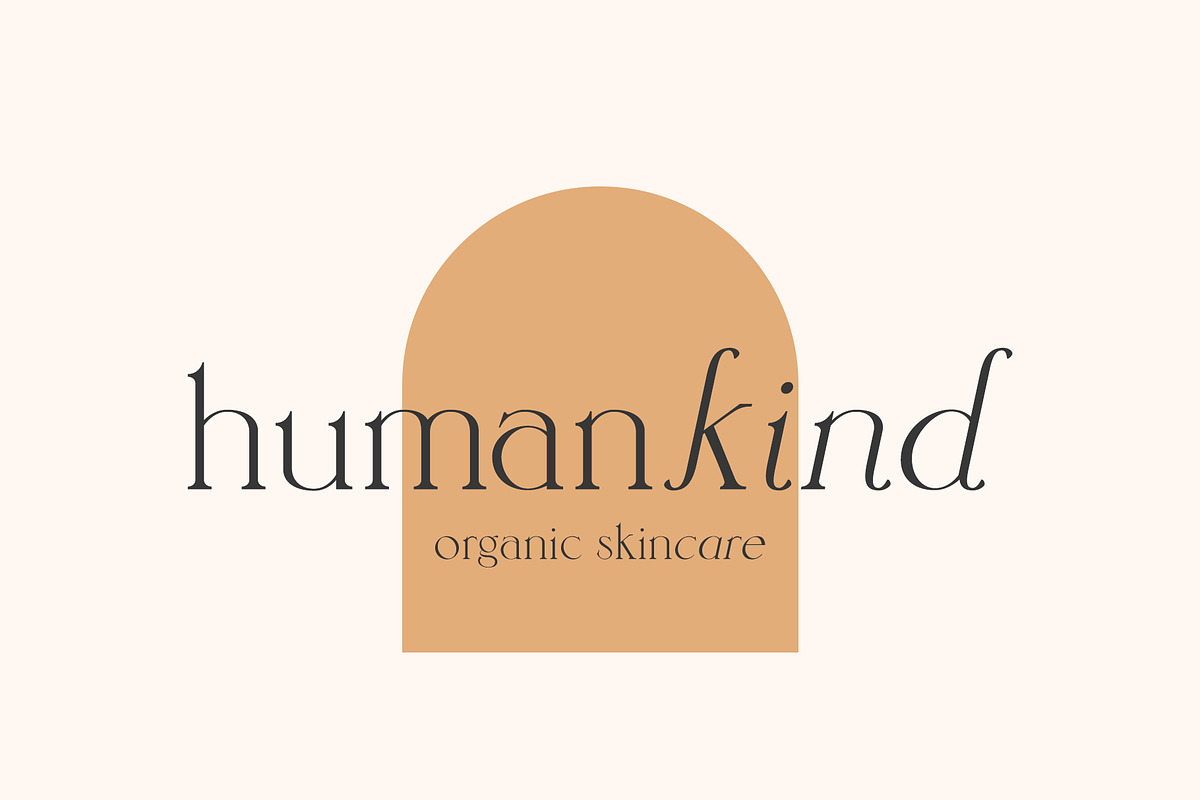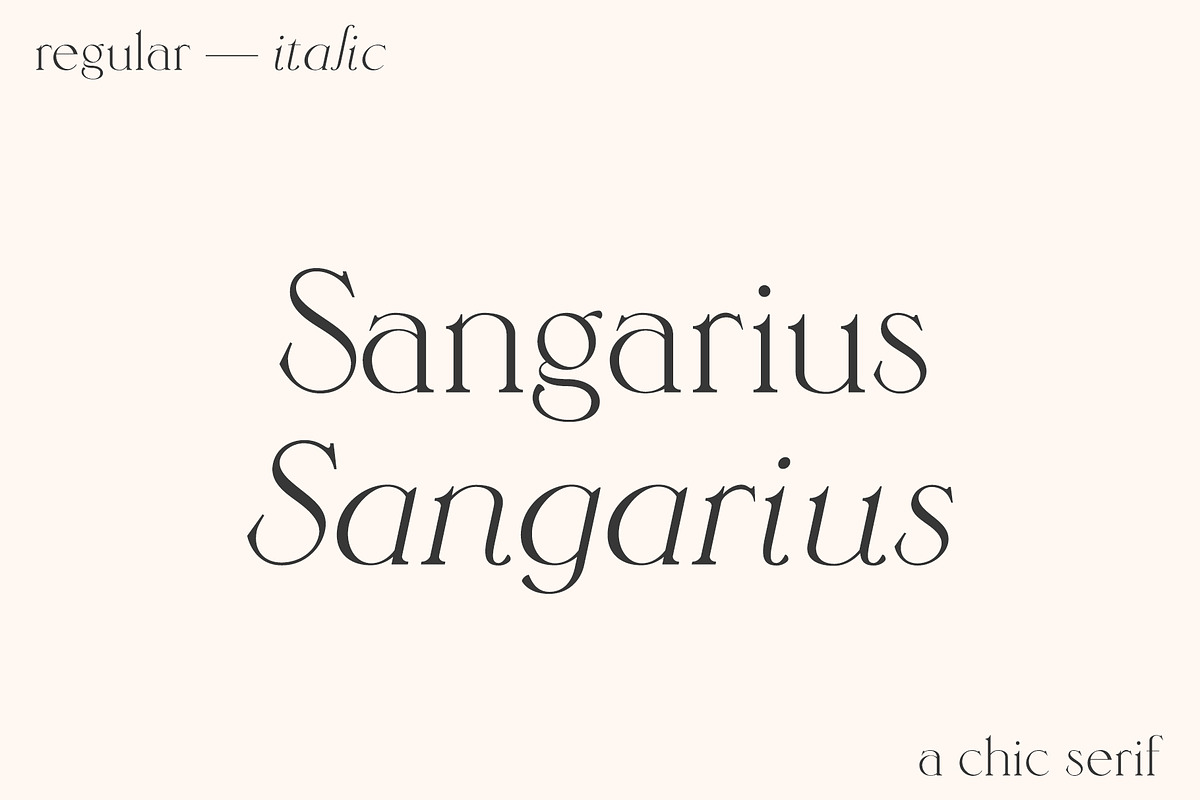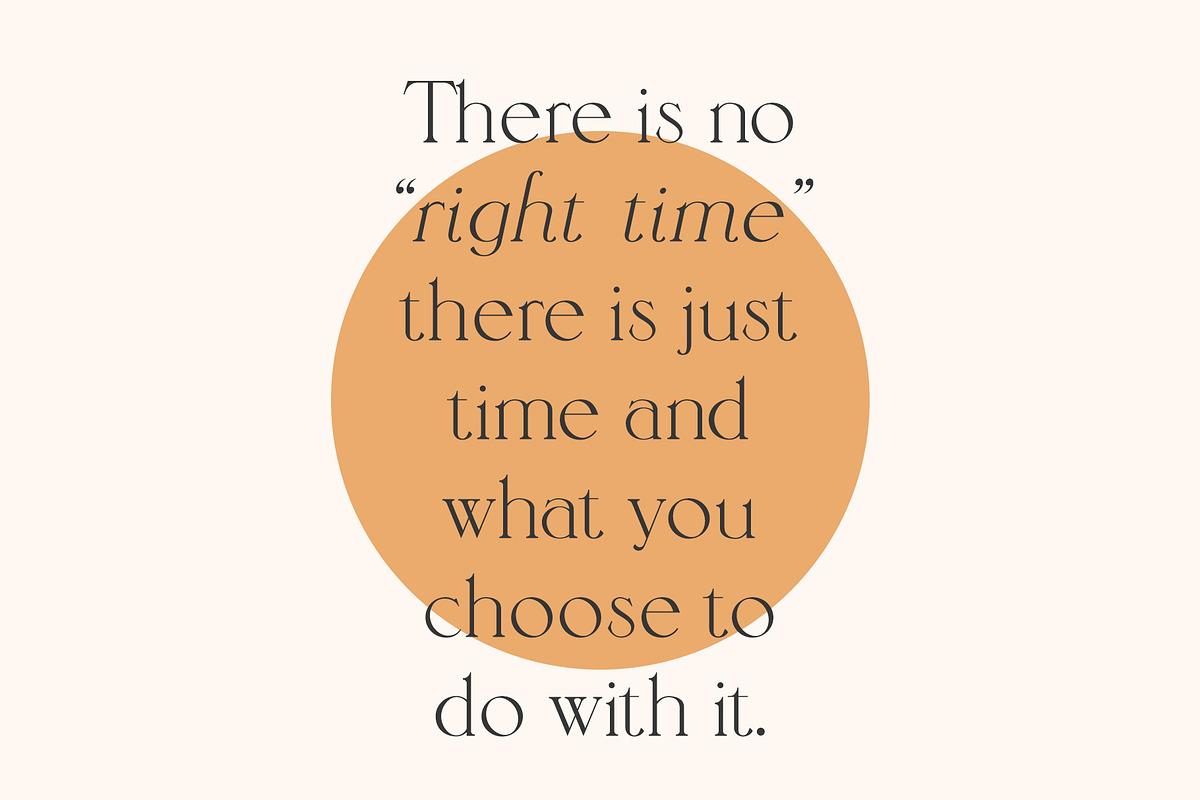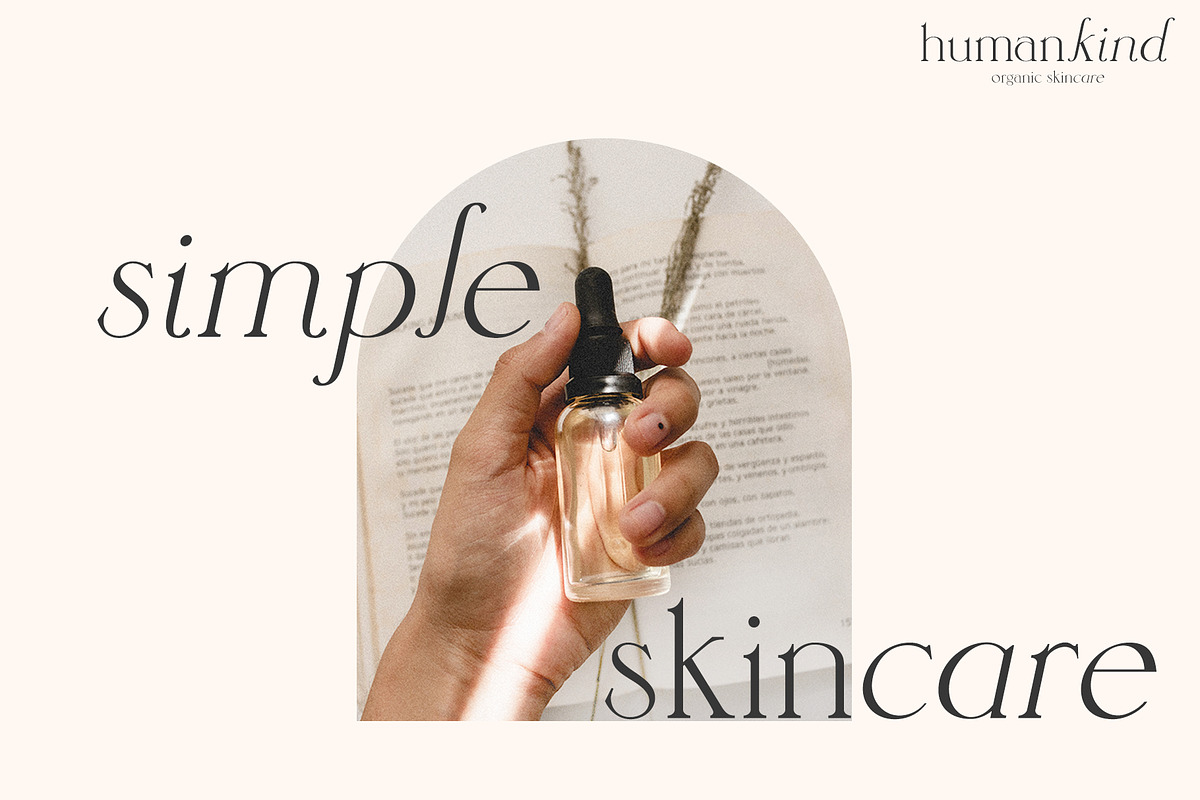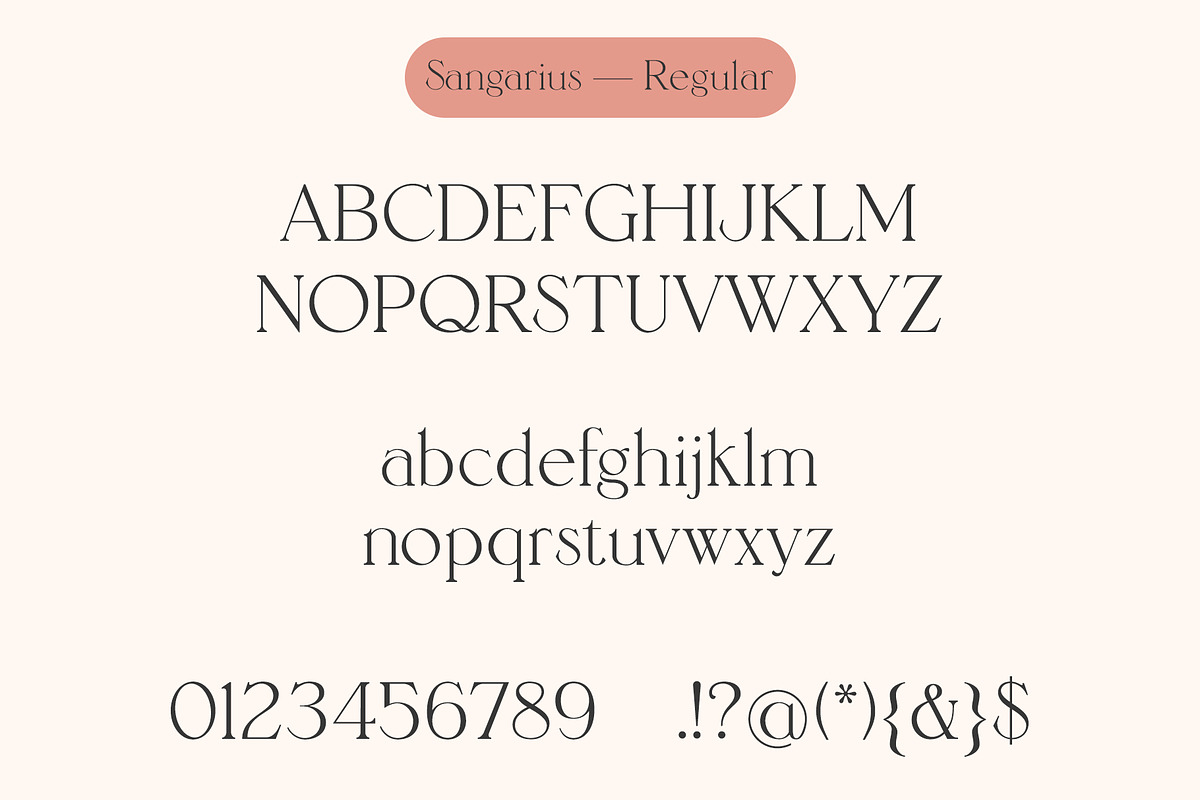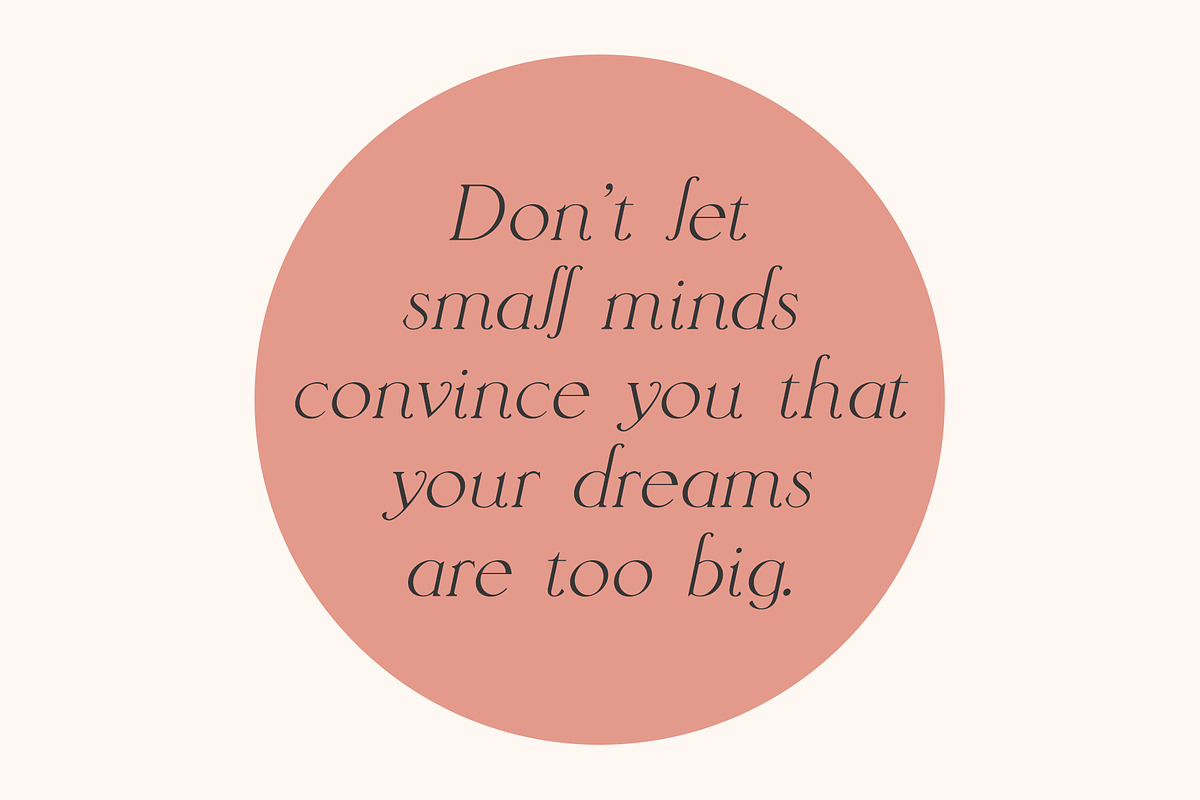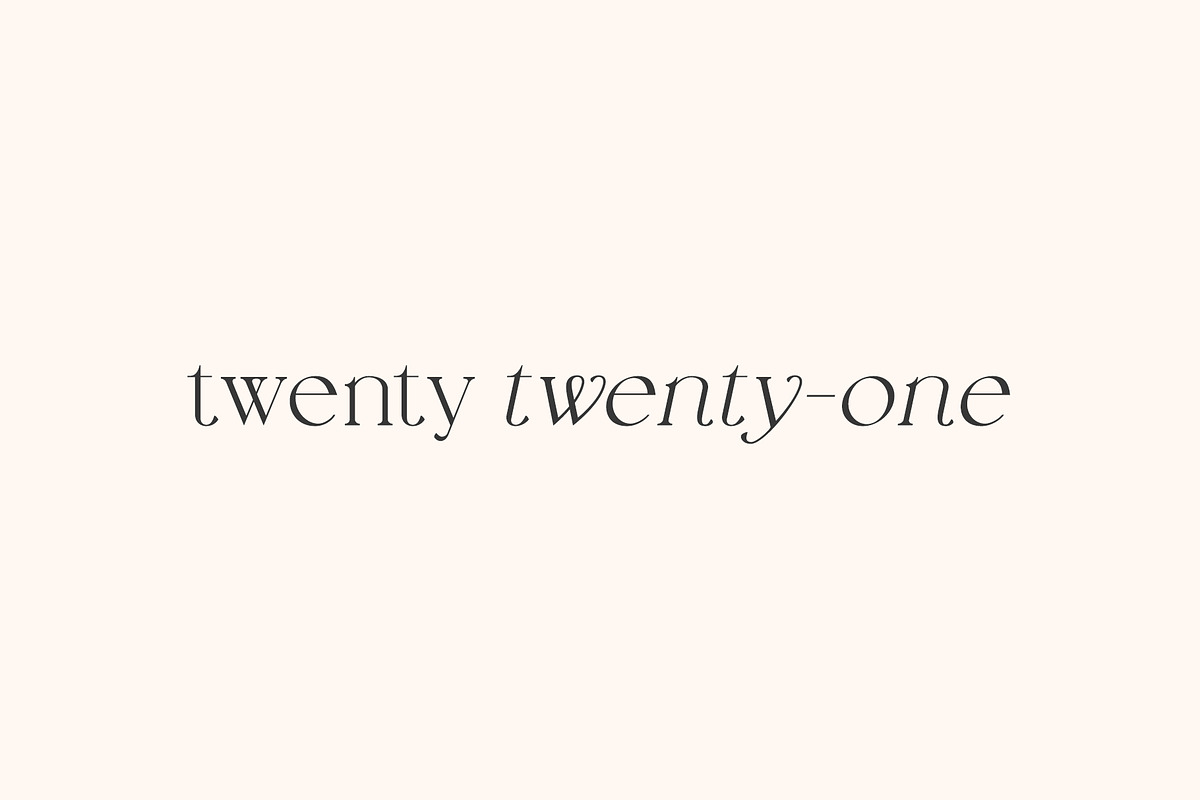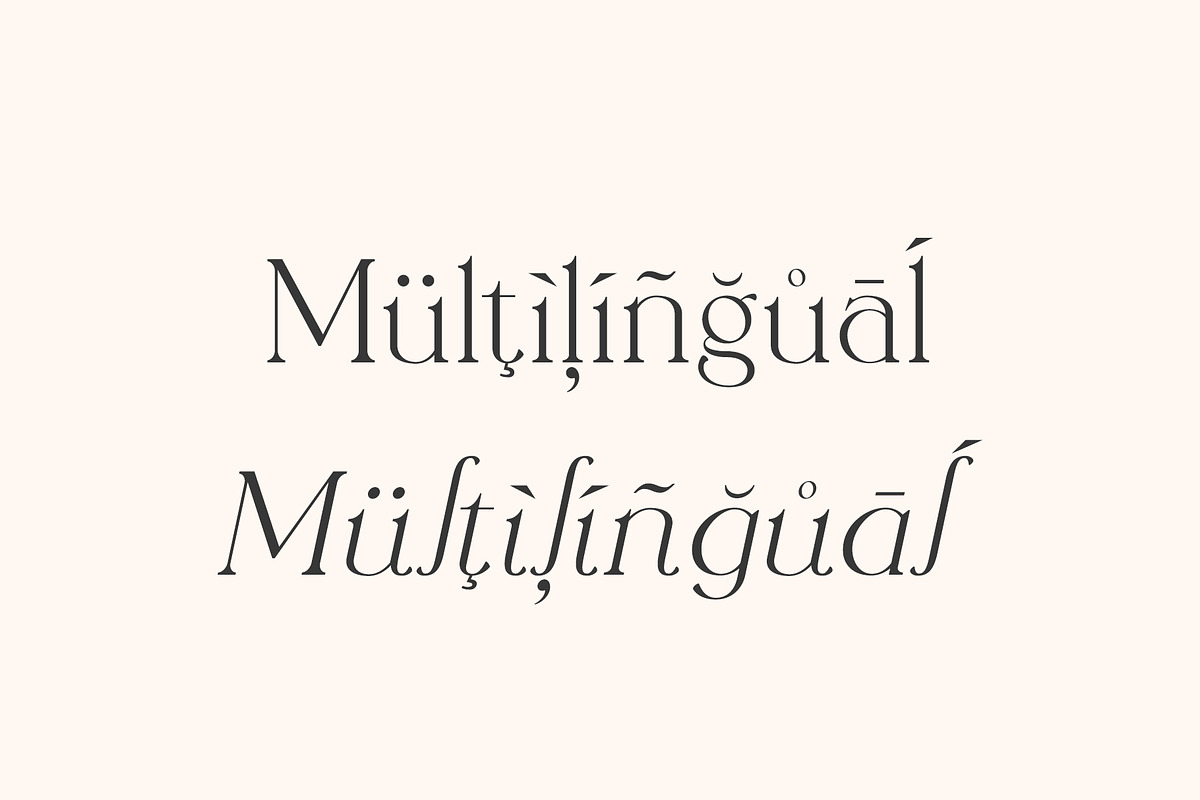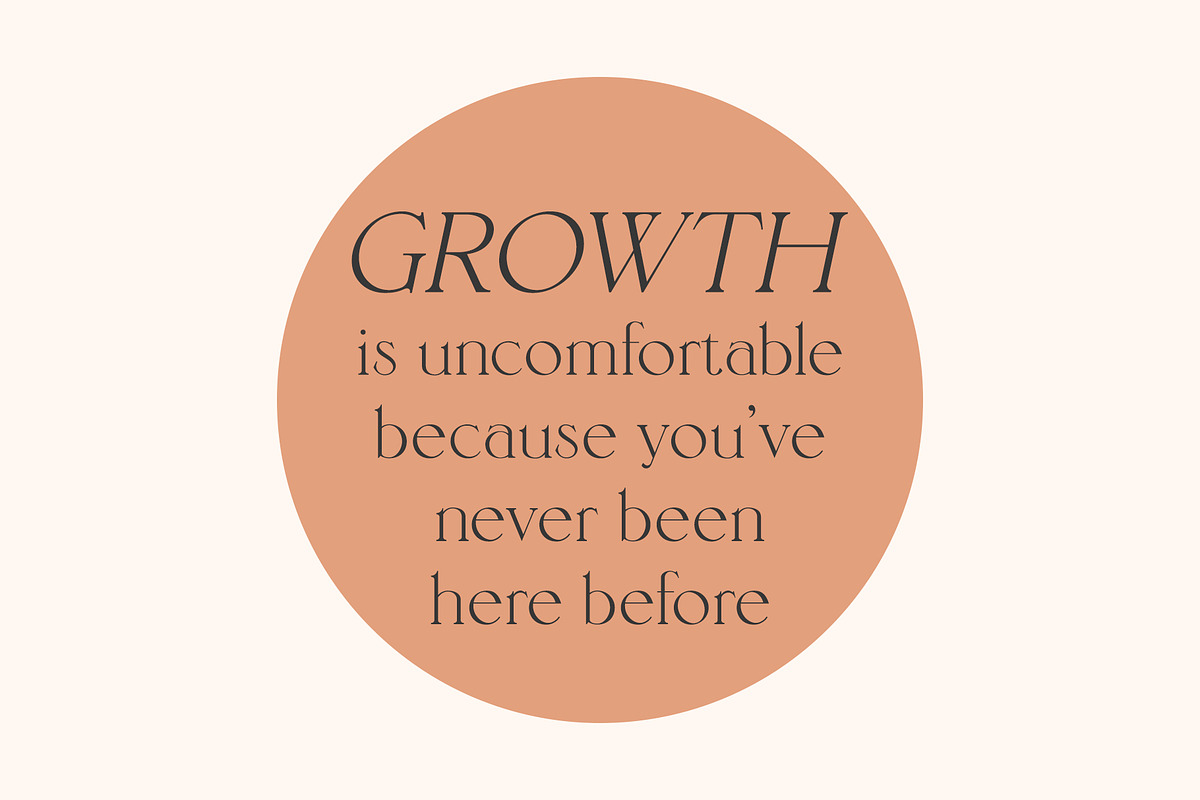
Sangarius // A Chic Serif Typeface
Sangarius is a chic and modern serif typeface that comes in both a regular and italic version. Perfect for creating elegant logos, stylish branding designs, social media images, editorial design, and much more.
- Regular and italic versions
- Uppercase and lowercase letters
- A few alternate letters and ligatures (for italic version only)
- Accented characters for the international designer
Languages Supported: Afrikaans, Albanian, Basque, Bokmål, Bosnian, Breton, Catalan, Cornish, Croatian, Czech, Danish, Dutch, English, Esperanto, Estonian, Faroese, Filipino, Finnish, French, Frisian, Friulian, Gaelic (Irish), Gaelic (Manx), Gaelic (Scottish), Gagauz (Latin), Galician, German, Hawaiian, Hungarian, Icelandic, Indonesian, Irish, Italian, Karelian, Ladin, Latvian, Lithuanian, Luxembourgish, Malay, Maltese, Norwegian, Nynorsk, Polish, Portuguese, Romanian, Sami, Serbian (Latin), Slovak, Slovenian, Sorbian, Spanish, Swedish, Swiss German, Turkish, and Welsh.